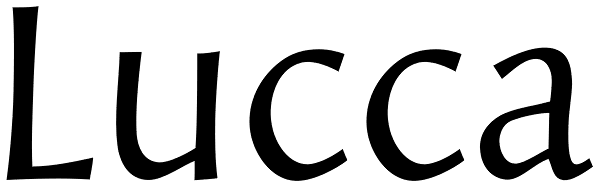
Lucca
Inspired by Italian Renaissance fonts like Poliphilus, Blado, Centaur and Arrighi, Lucca presents a simple charm and a powerful classic feel. It is cute, friendly, clear and superbly readable. Its low contrast provides Lucca a firm yet flexible...